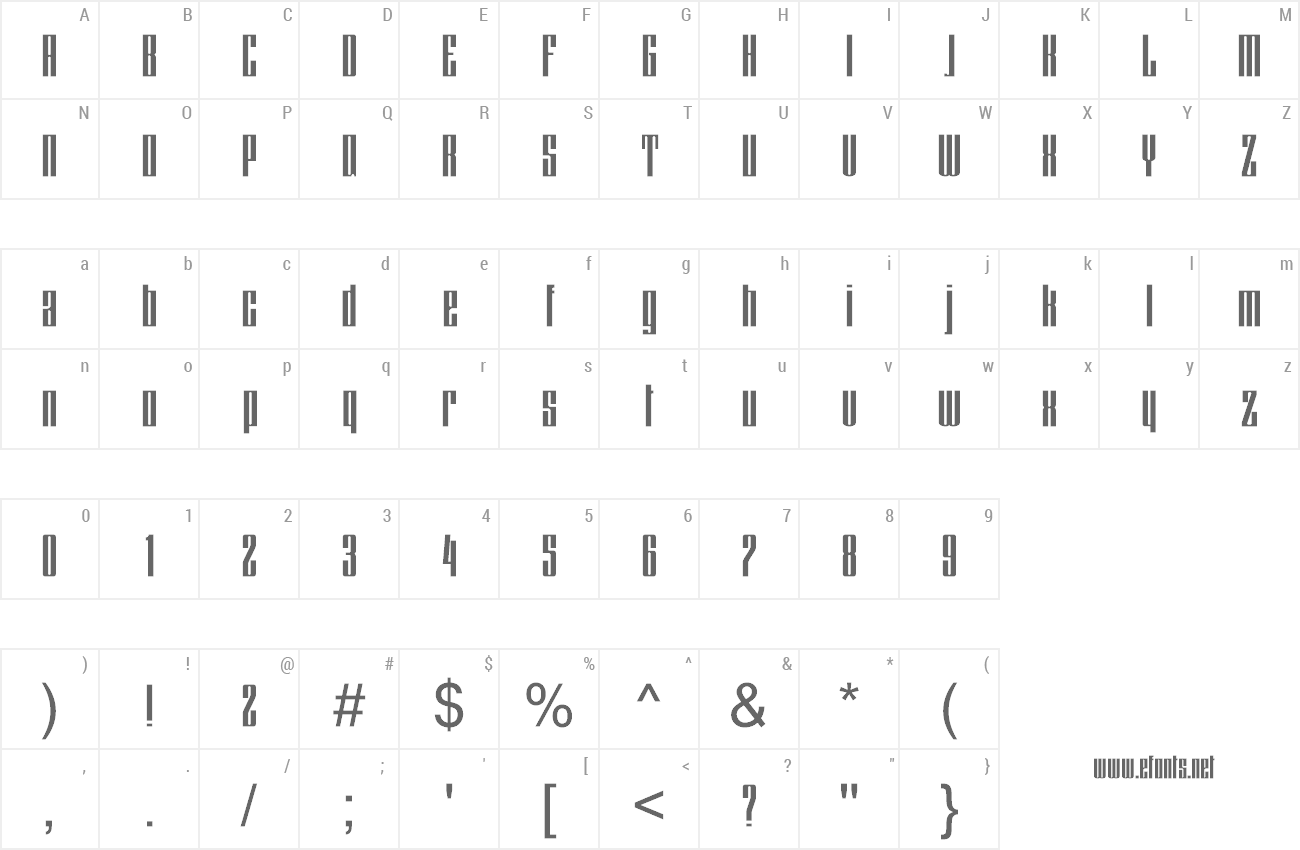
| Font name: | HFF Lasdof Twunyliven |
| Author: | Have Fun with Fonts |
| Note by Have Fun with Fonts | |
Based on Herald Square from Condensed Alphabets by Dan Solo. Lasdof Twunyliven is pronounced "last day of twenty eleven" bcause the font was completed and first released at alt.binaries.fonts on December 31, 2011. This proves that I am really, really good when it comes to spelling (and I haven't even mentioned grammar.) 8D |